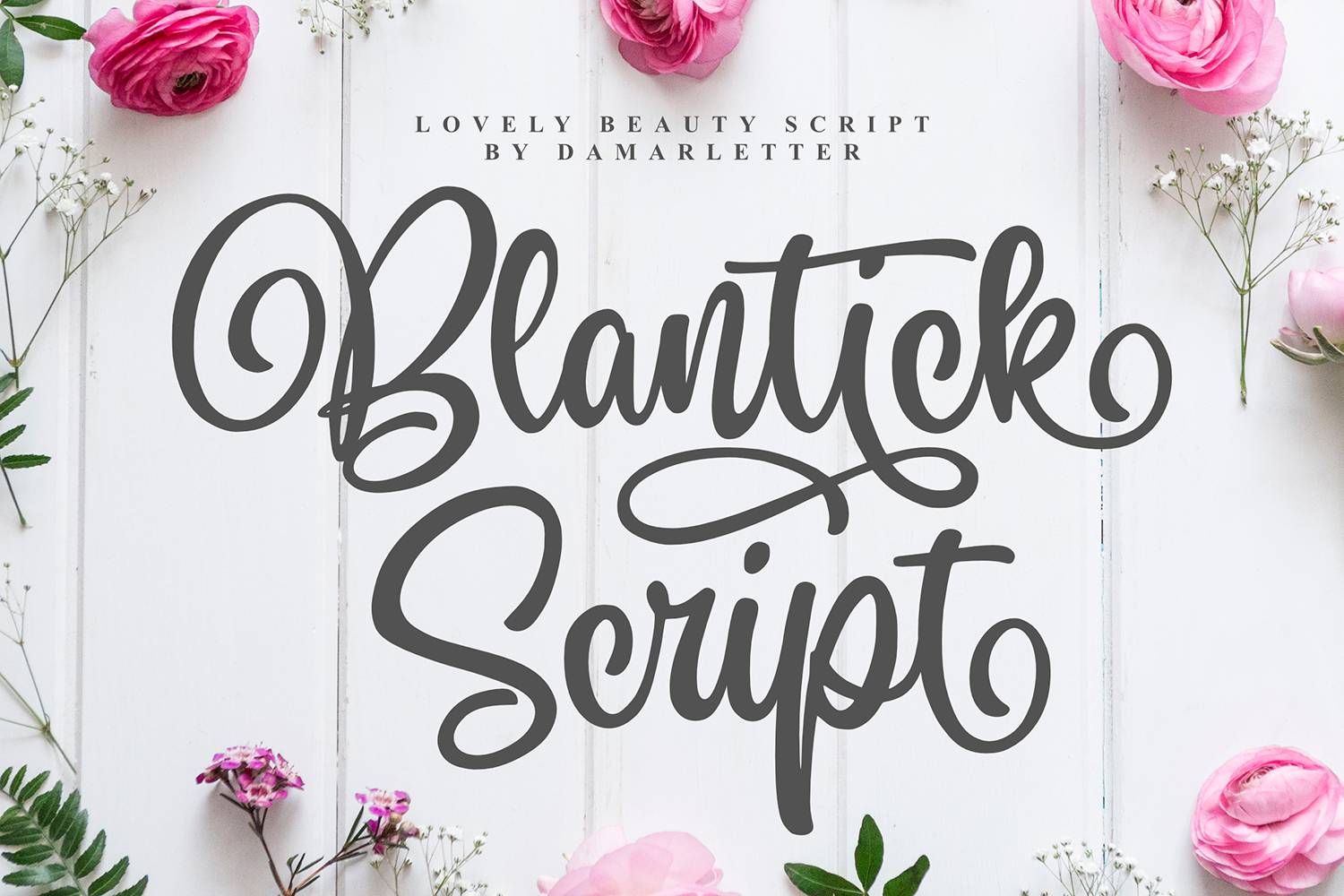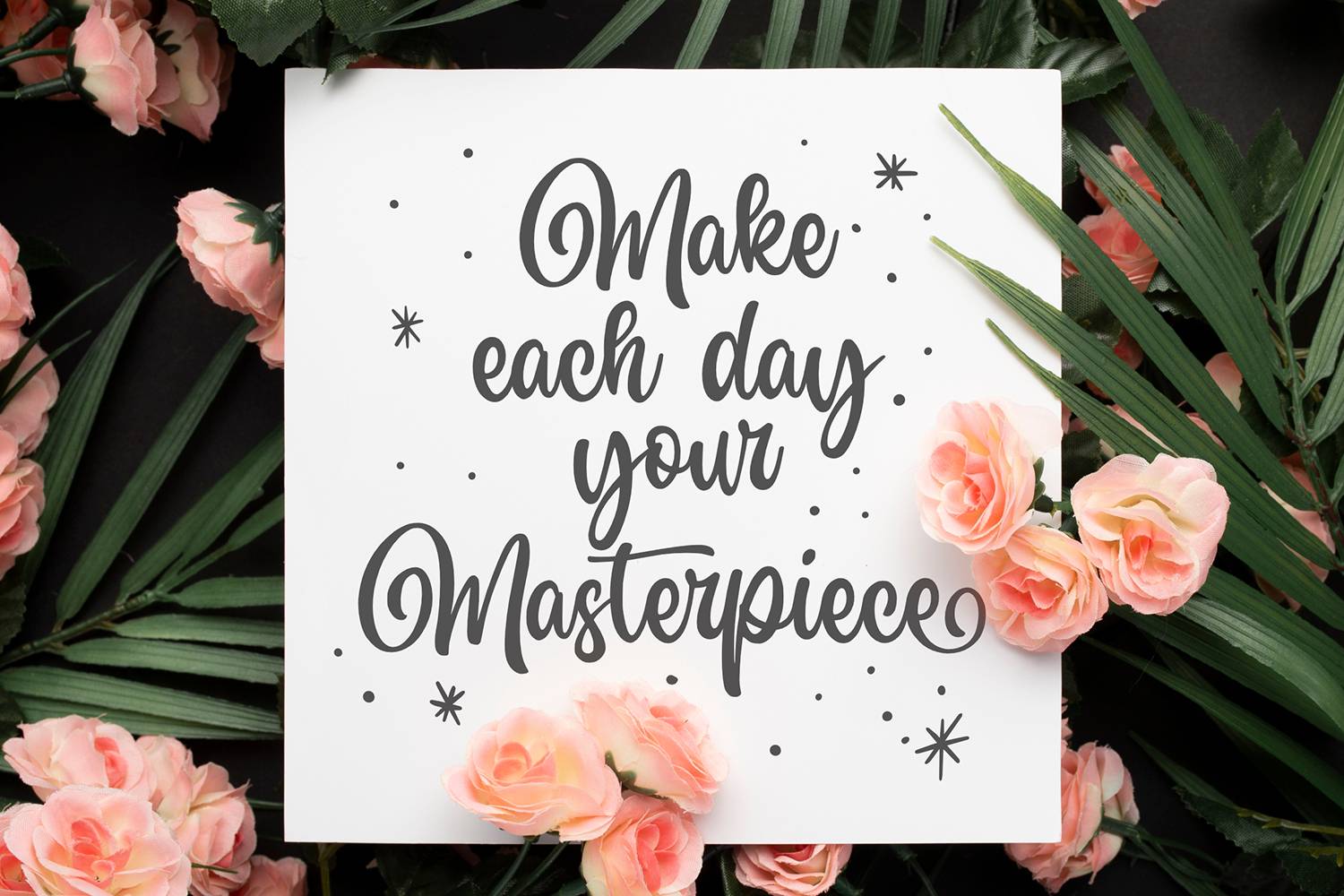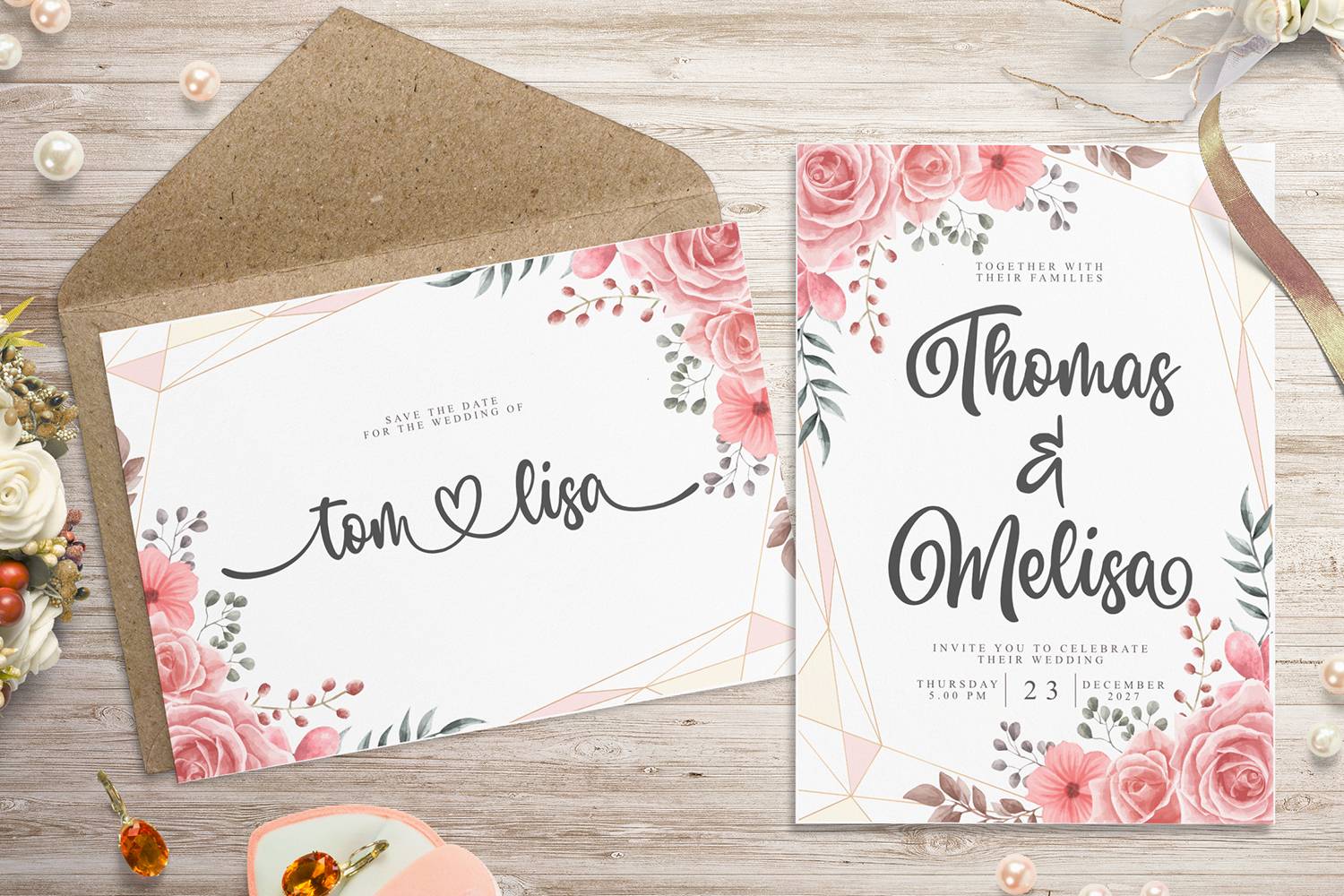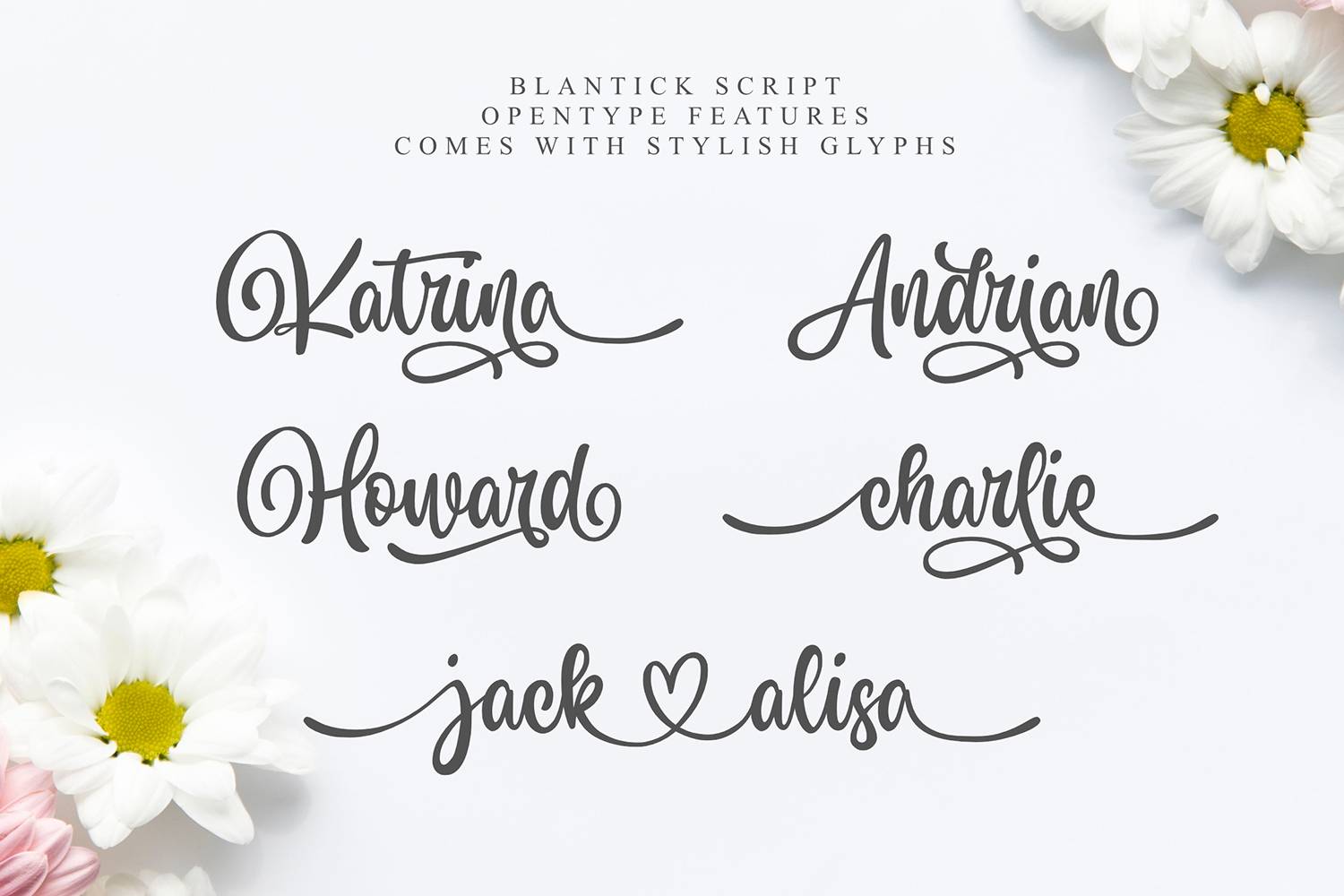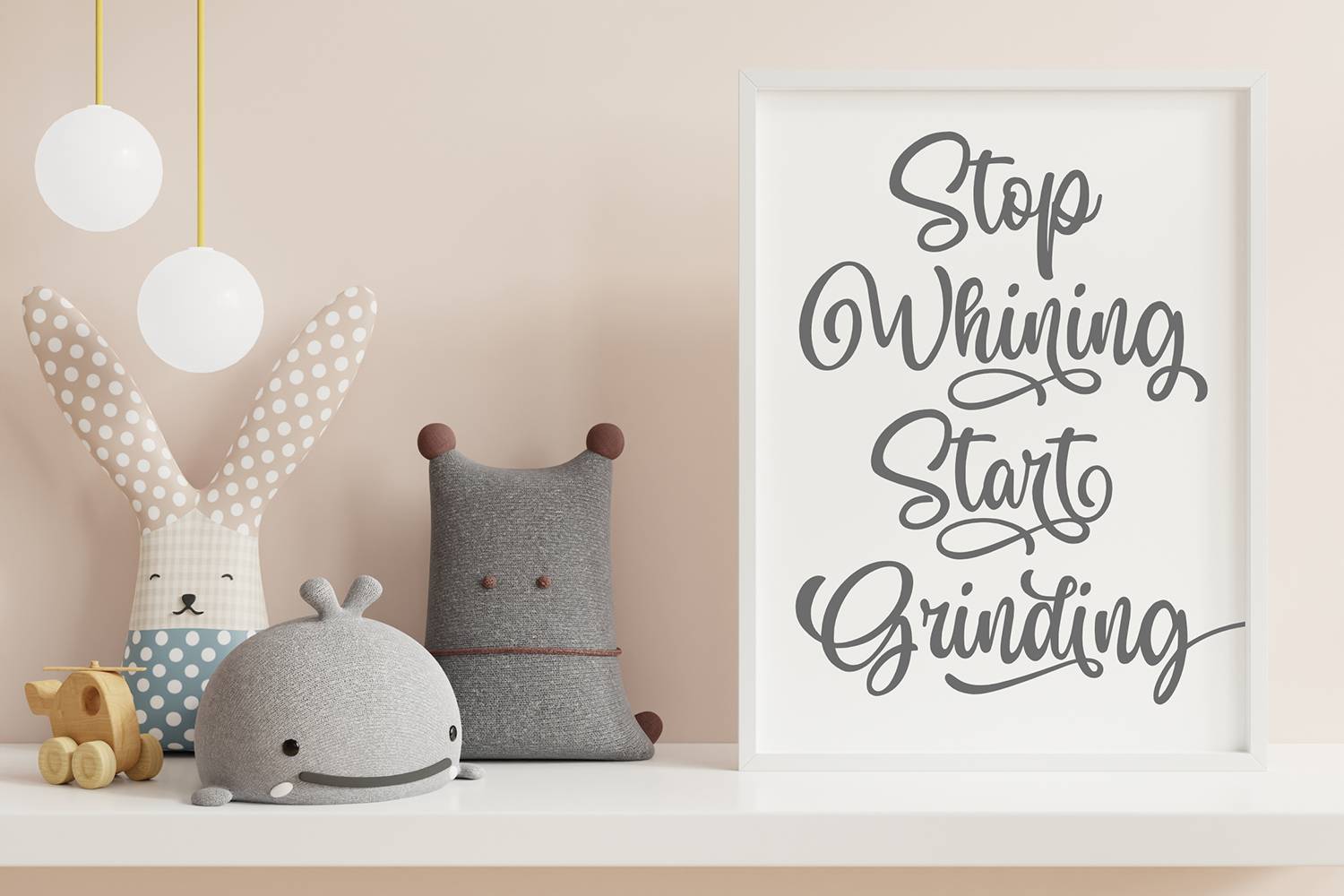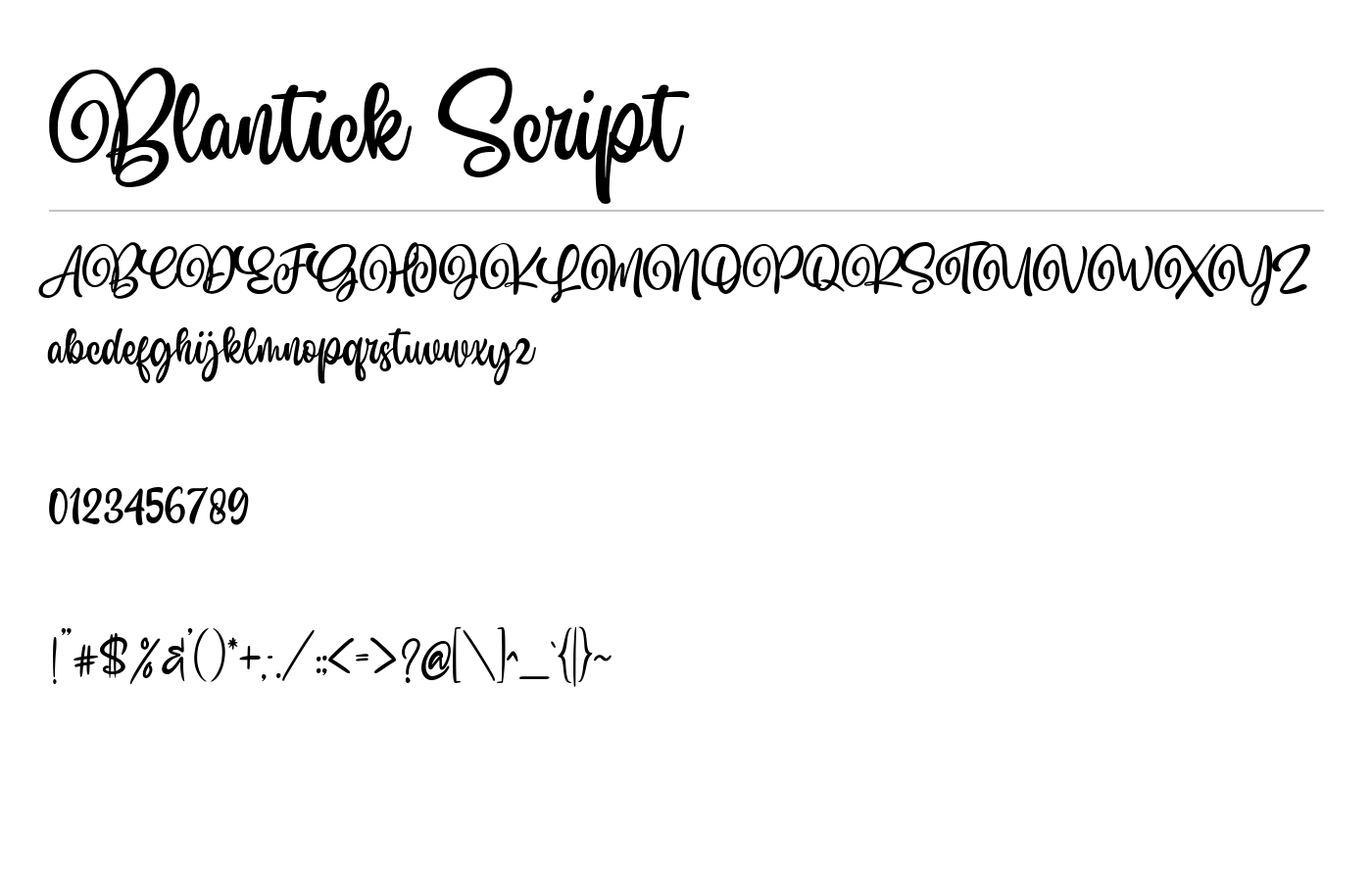
Blantick Script is an elegant and lively handwritten script font featuring smooth, flowing strokes with a playful yet refined character. Its medium weight and balanced proportions make it ideal for adding a personal and creative touch to invitations, branding, and packaging where a stylish, approachable feel is desired. Perfect for designs that seek a warm, artistic vibe without compromising readability.
Blantick Script Font
About Blantick Script Font
| Font family | Blantick Script Font |
| Designer | Ardian Nuvianto |